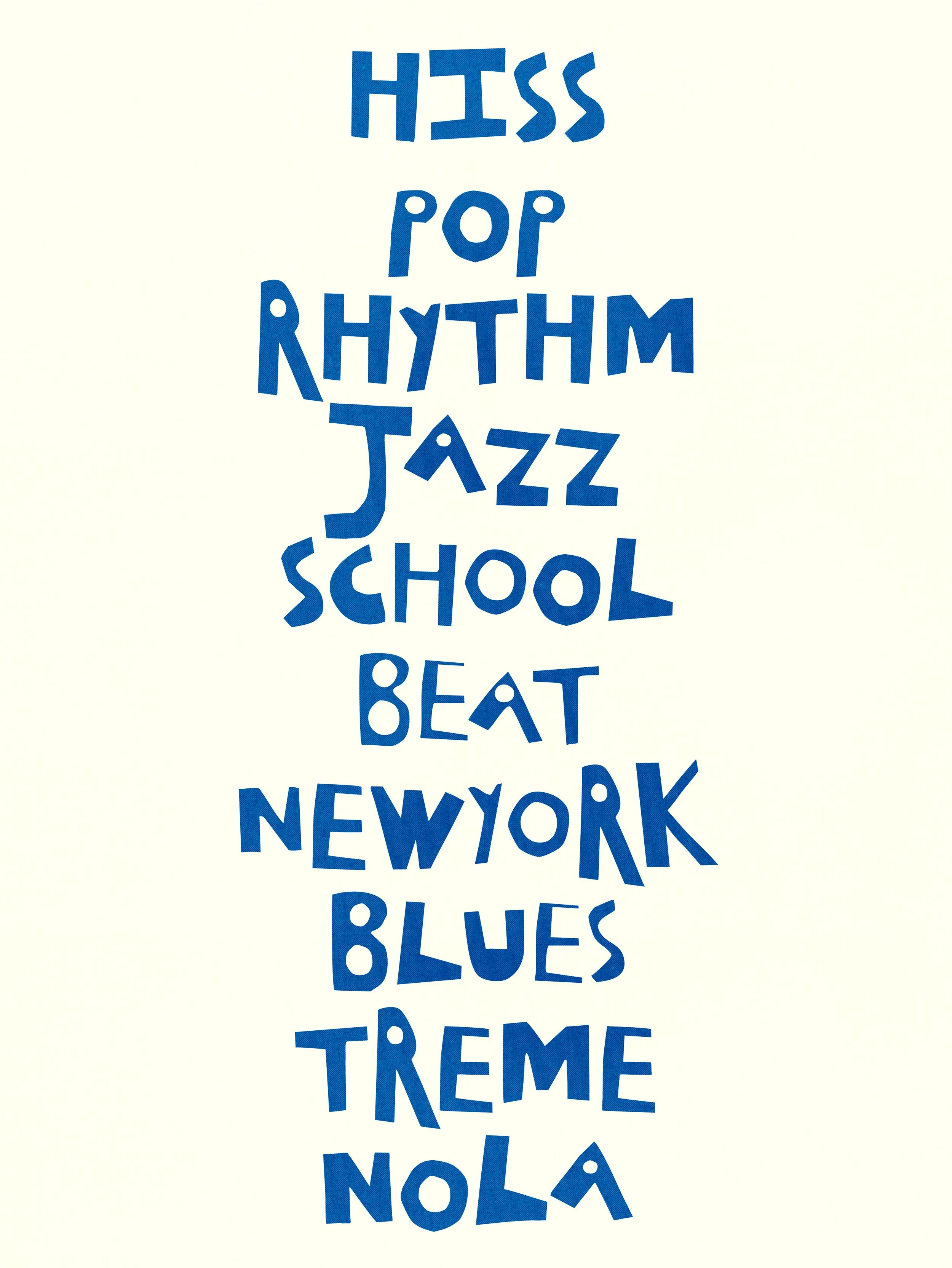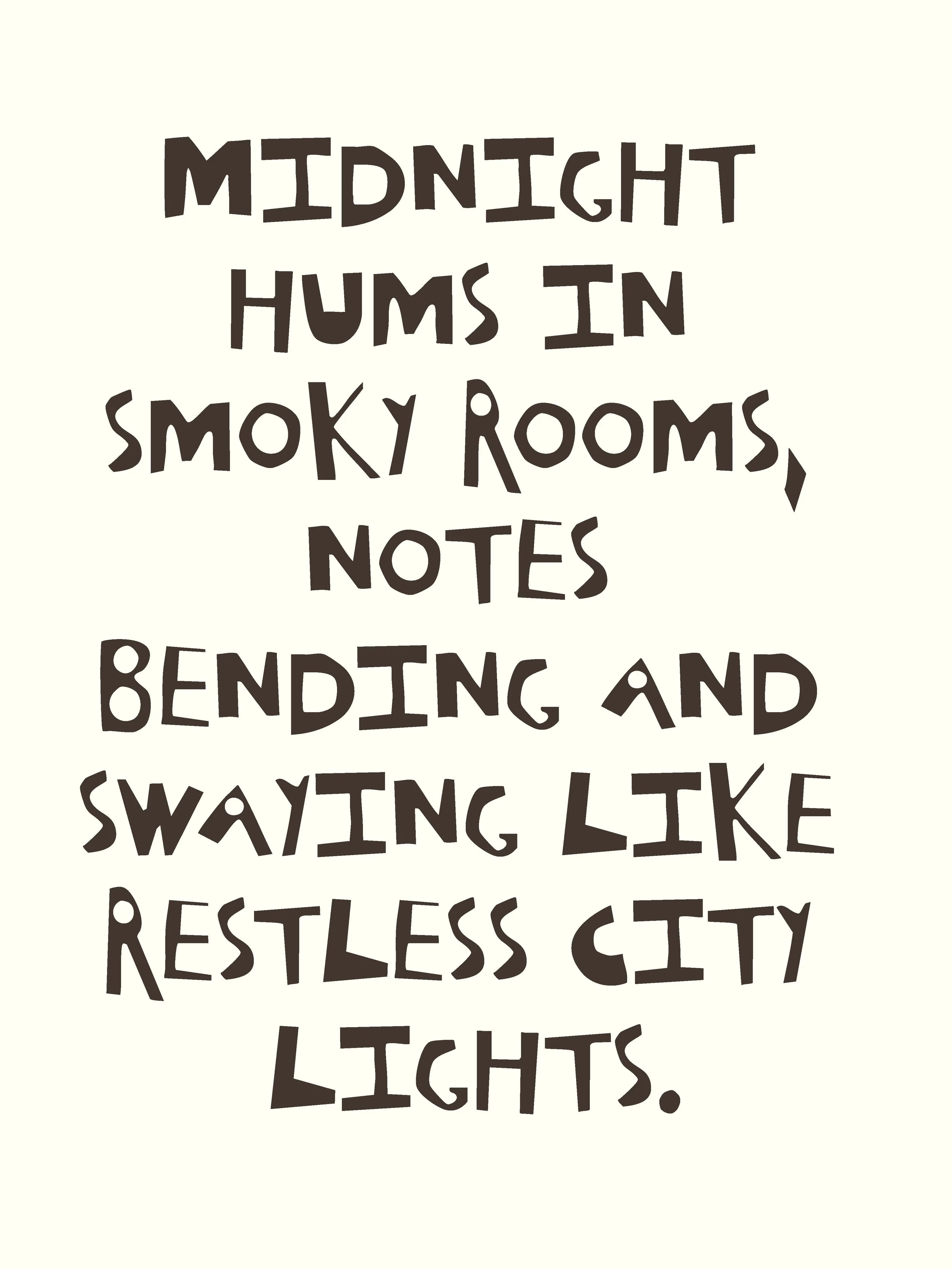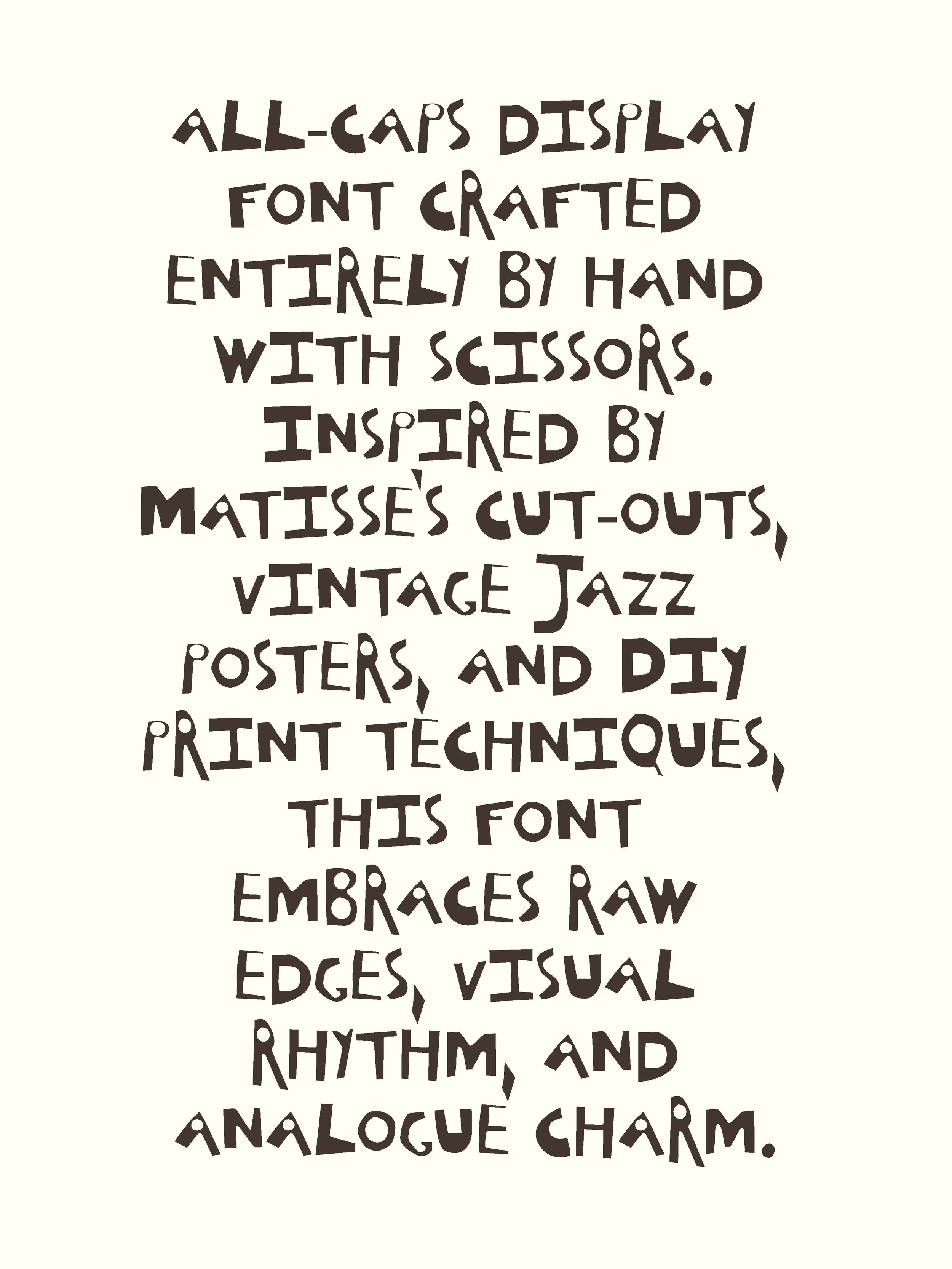
Bring the rhythm of jazz into your designs with The Cutouts — a hand-cut, all-caps display font that grooves like a Coltrane solo. Crafted entirely by hand with scissors, this font is steeped in the spirit of Matisse’s cut-outs, vintage jazz posters, and the tactile energy of DIY printmaking. Every letter carries raw edges, visual swing, and analogue warmth.
Each uppercase letter was hand-cut for an authentic, imperfect feel. For layering and contrast, the lowercase set offers a thinner, lighter version of the uppercase letters — not traditional lowercase, but a second “cut” of the same forms, giving your compositions a sense of improvisation and movement, like notes bending over a Blue Train riff.
Perfect for:
Jazz-inspired posters, flyers, and album art
Editorial layouts and art books
Creative branding with soul
Zines, printed matter, and DIY graphics
Collage, experimentation, and digital compositions